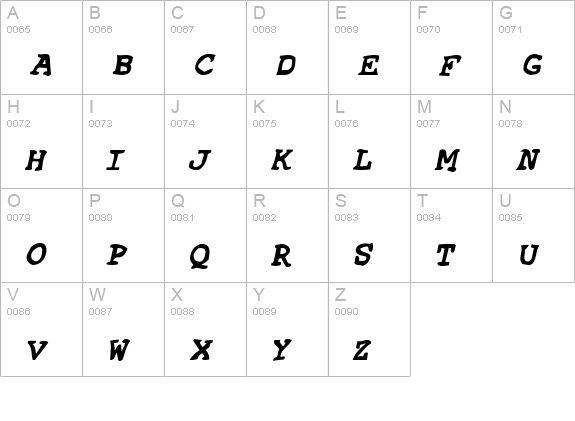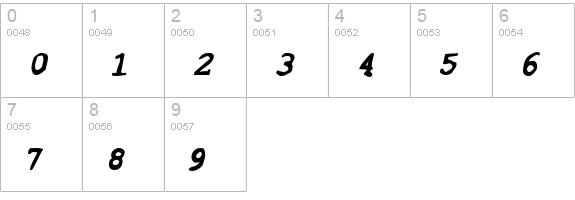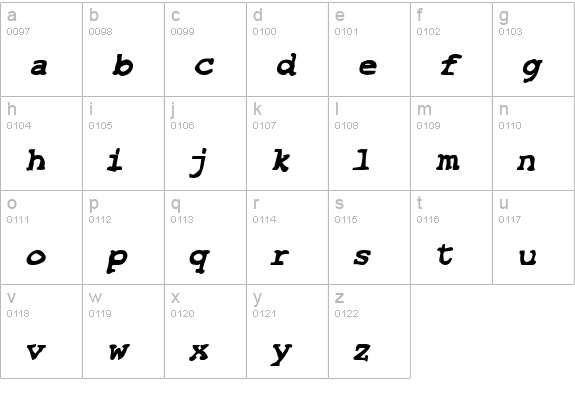
SF Espionage Heavy Oblique is a heavy, high-impact, italic variant in the SF typeface family \xE2\x80\x94 well suited to high-impact headlines, posters, and display advertising.
SF Espionage Heavy Oblique is a font that exudes an air of mystery and intrigue. With its bold and slanted design, it captures the essence of espionage and secret missions. The letters are sharp and edgy, giving them a distinct and powerful presence. This font is perfect for projects that require a touch of clandestine charm. Whether you're designing a poster for a spy-themed event or creating a logo for a top-secret organization, SF Espionage Heavy Oblique will add a layer of excitement and suspense to your work. Not only does SF Espionage Heavy Oblique possess captivating aesthetics, but it is also freely available to download at FontsMarket.com. This means that you can bring a touch of espionage to your designs without breaking the bank. The font can be easily accessed, allowing you to start incorporating its unique style into your projects immediately. So, if you're looking to add a dash of intrigue and espionage to your designs, look no further than SF Espionage Heavy Oblique. Download it for free at FontsMarket.com and unlock a world of clandestine creativity.